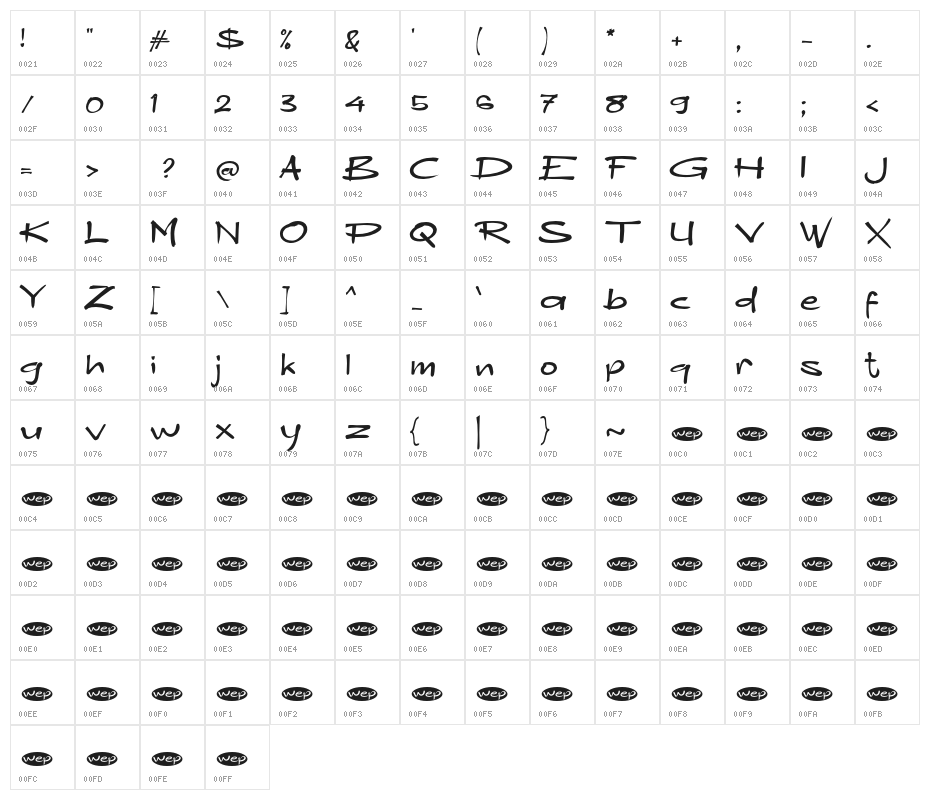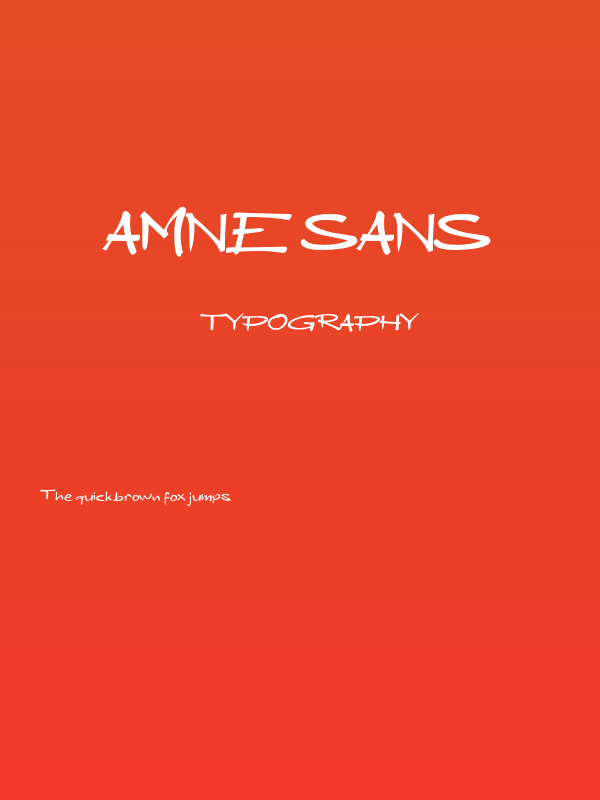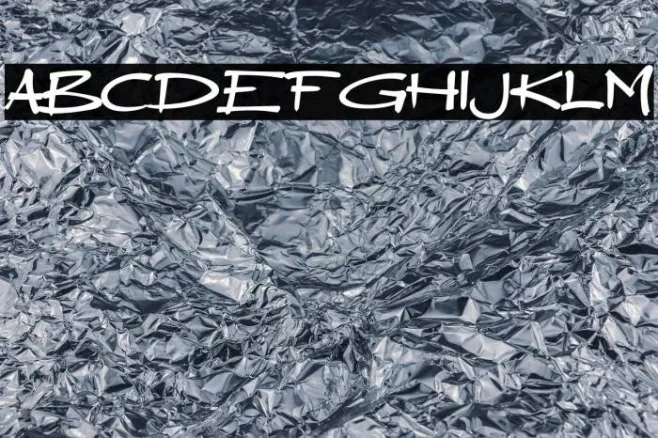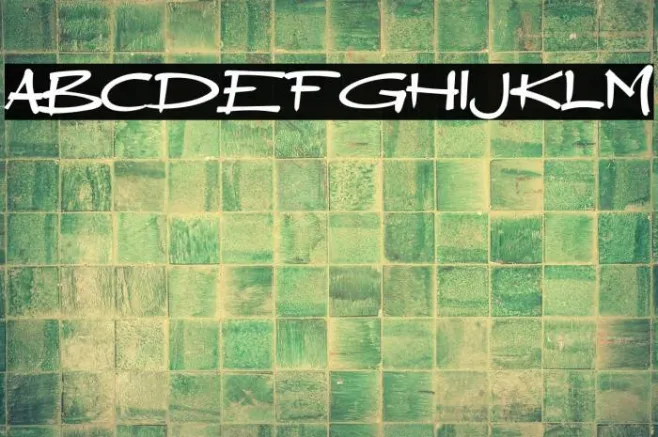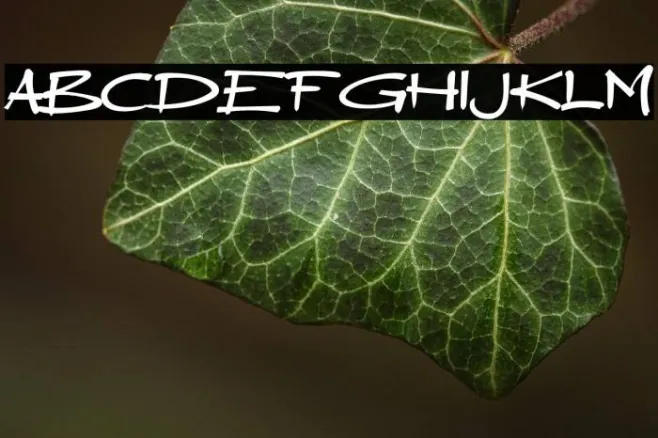
Amne Sans Font
Amne Sans Description
This font features a playful and energetic style, characterized by its bold and dynamic strokes. The letters have a hand-drawn appearance, with irregular lines that give it a casual and informal feel. The uppercase and lowercase letters maintain a consistent style, with a slight slant that adds to the font's lively nature. The numbers and special characters are designed to match the overall aesthetic, ensuring a cohesive look across all text. This font is ideal for projects that require a fun and approachable tone.
| Proposed Projects | Perfect for children's books, playful branding, casual invitations, and creative posters. |